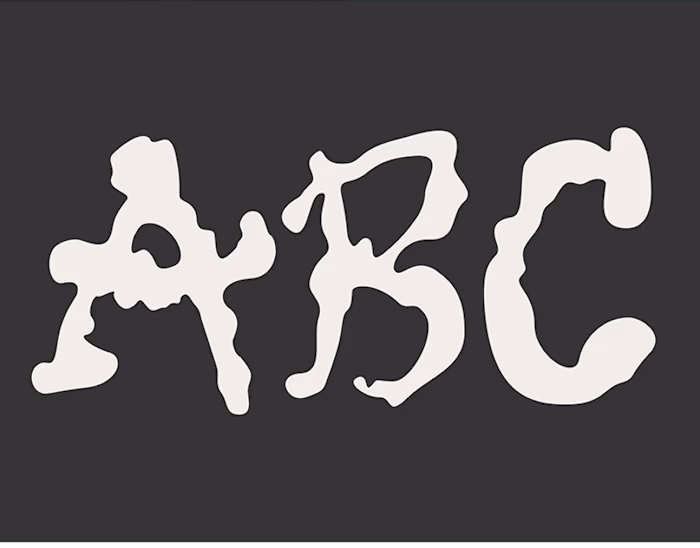
Lucia Mikušová
Made of paper scraps, bits and pieces of leftover paper used for collages. I tried to look for letter forms in the shapes I already had.